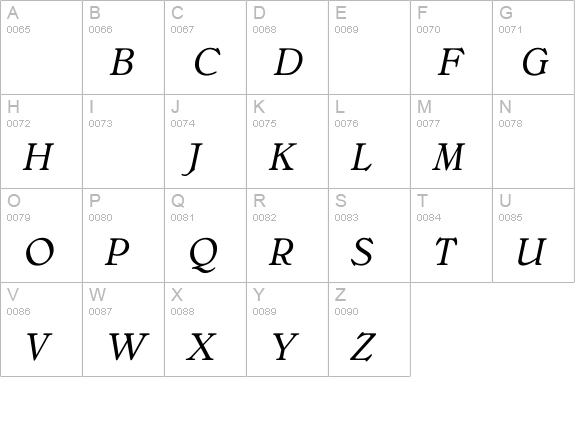
BelliniOriginalItalic is a graceful and elegant font that exudes a sense of sophistication and charm. Its delicate curves and stylish flourishes make it perfect for adding a touch of class to any design project. Whether you're creating invitations, branding materials, or editorial designs, BelliniOriginalItalic is sure to make a statement. The best part? BelliniOriginalItalic is completely free to download at FontsMarket.com. This means you can easily access this stunning font for all your creative endeavors without any cost. Don't miss out on the opportunity to elevate your designs with the timeless beauty of BelliniOriginalItalic. Download it today and let your creativity shine.